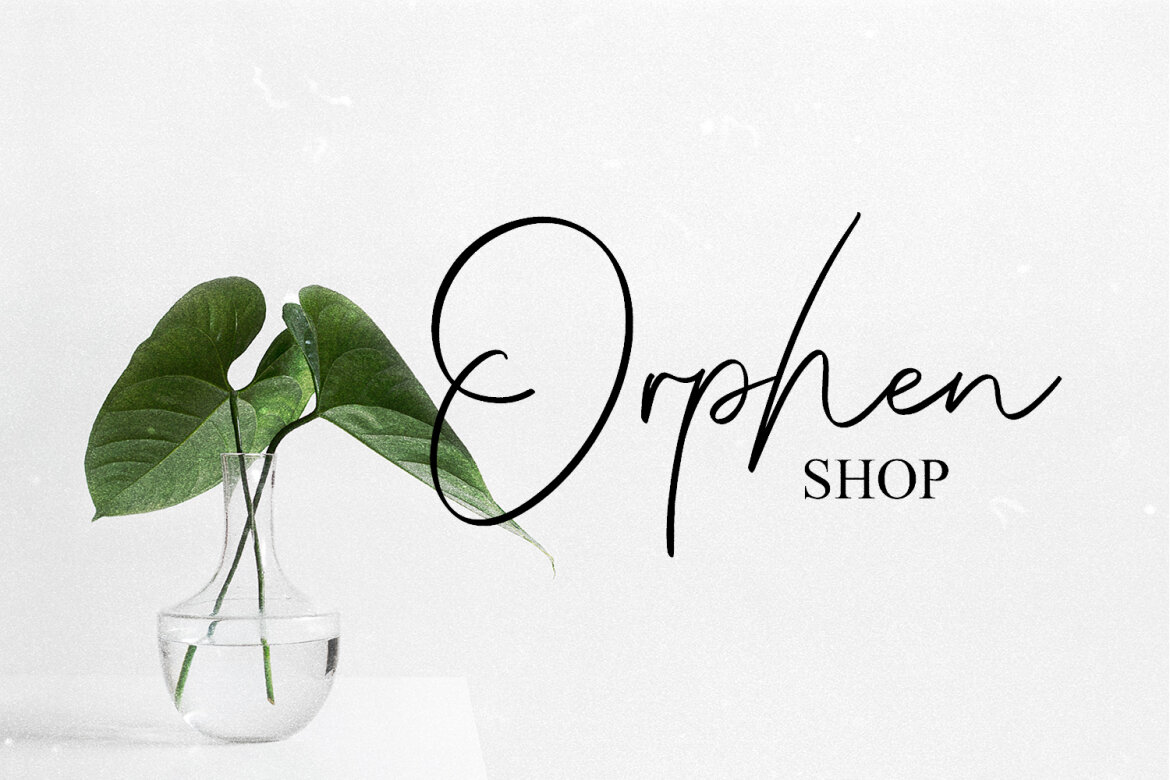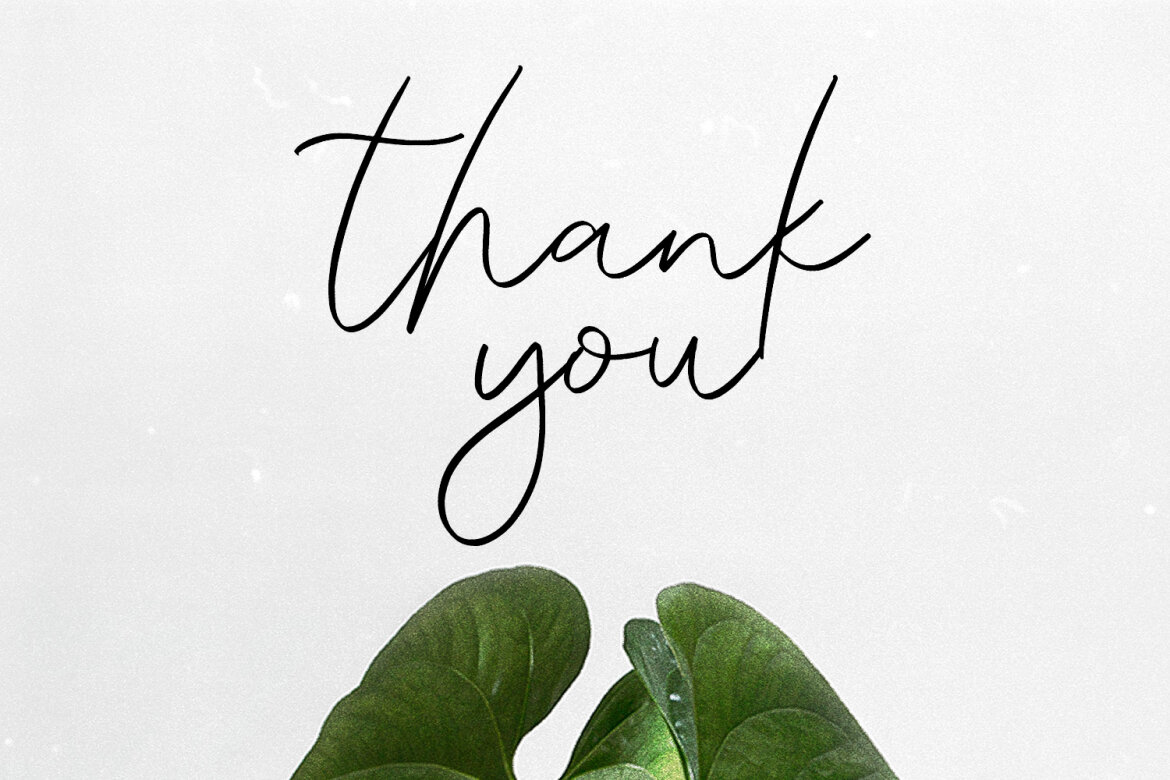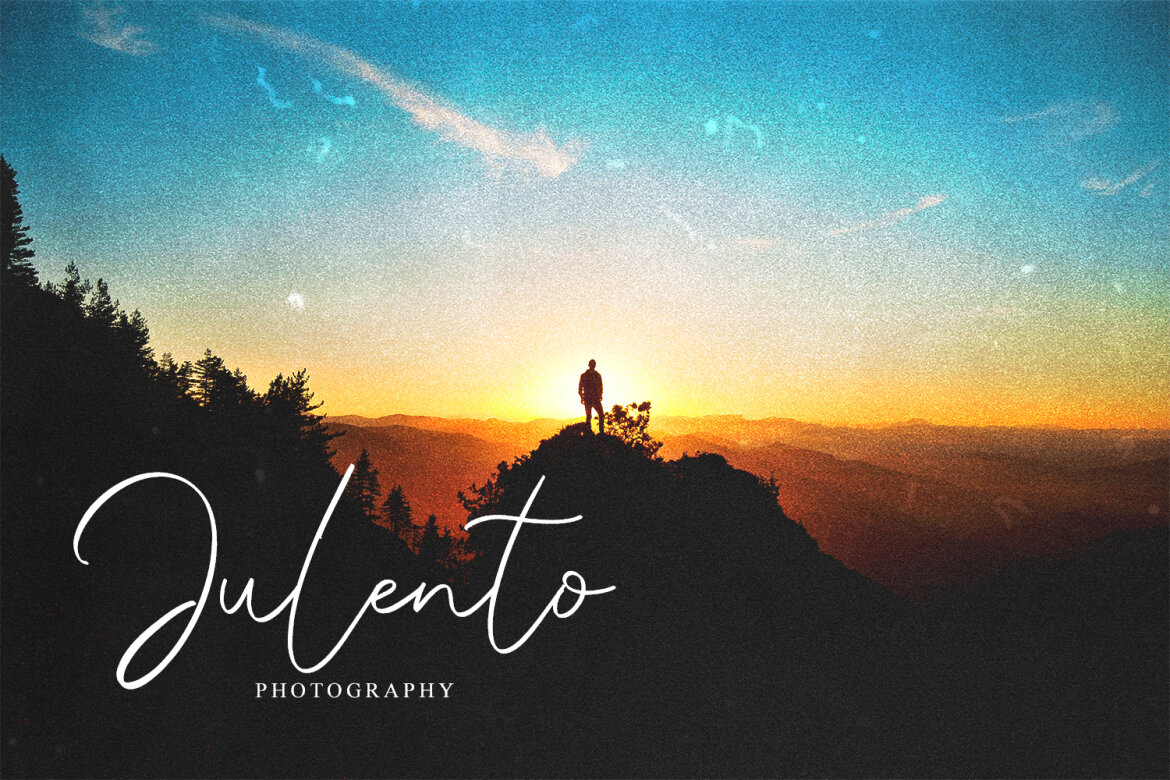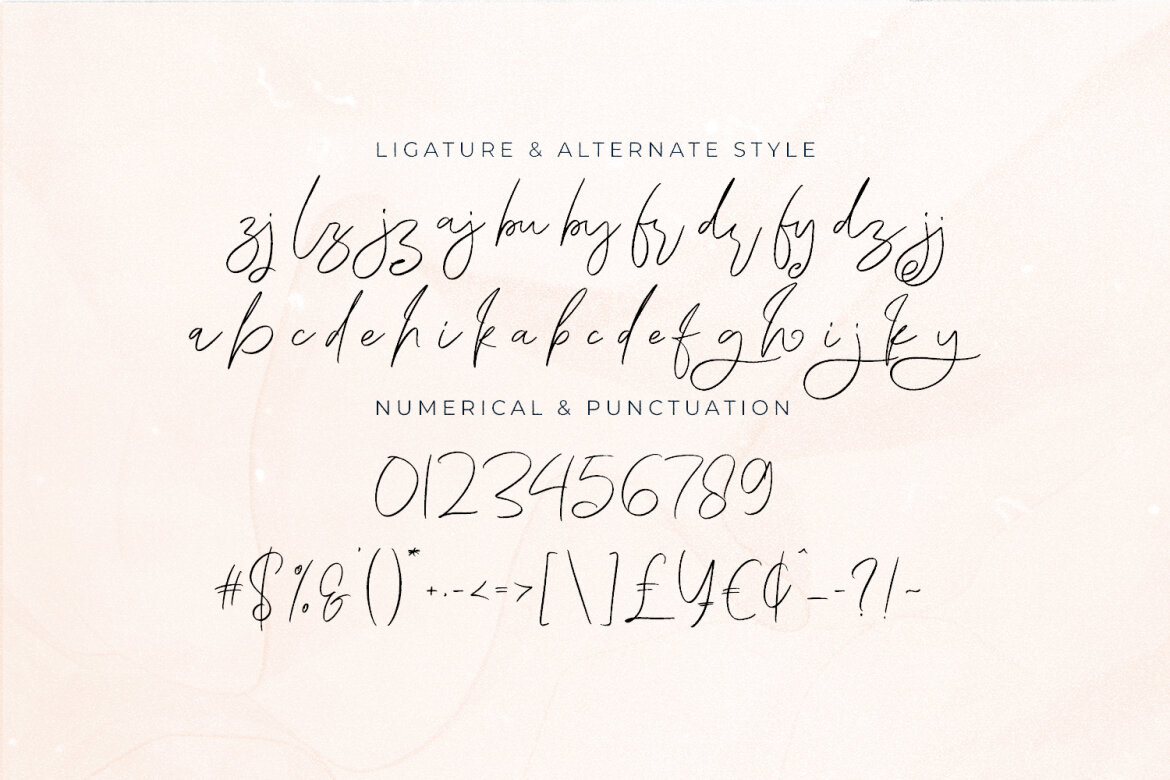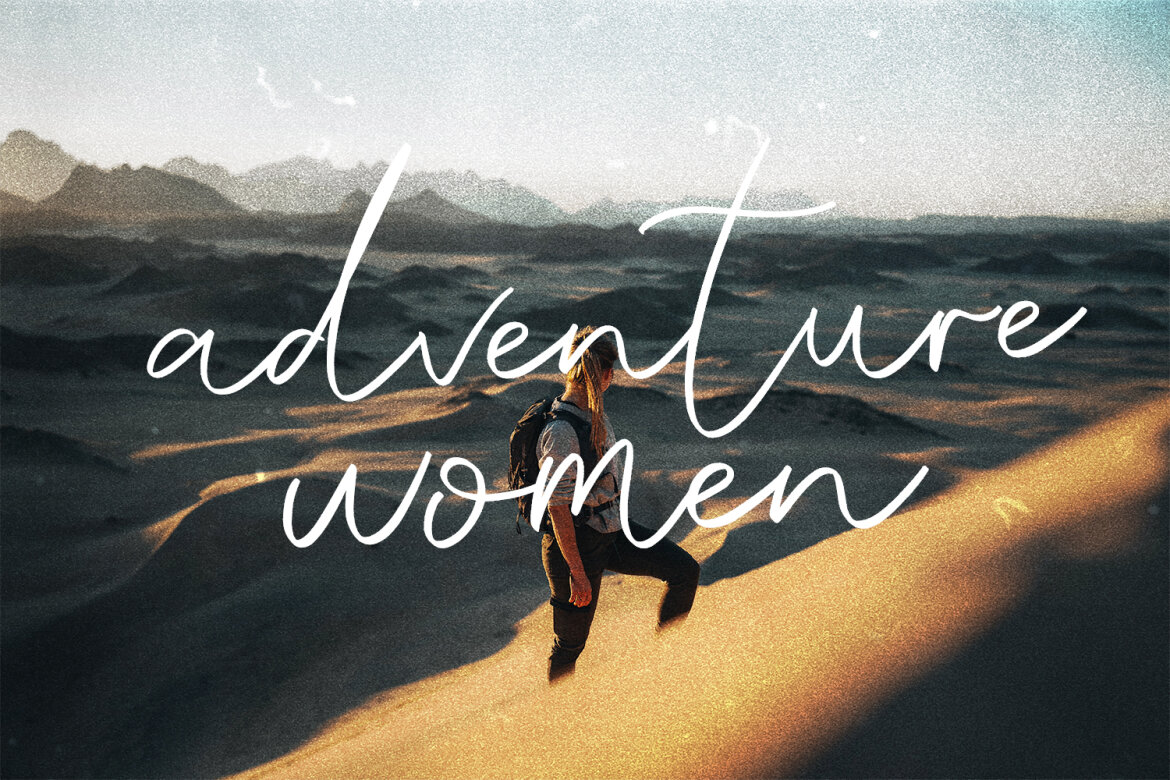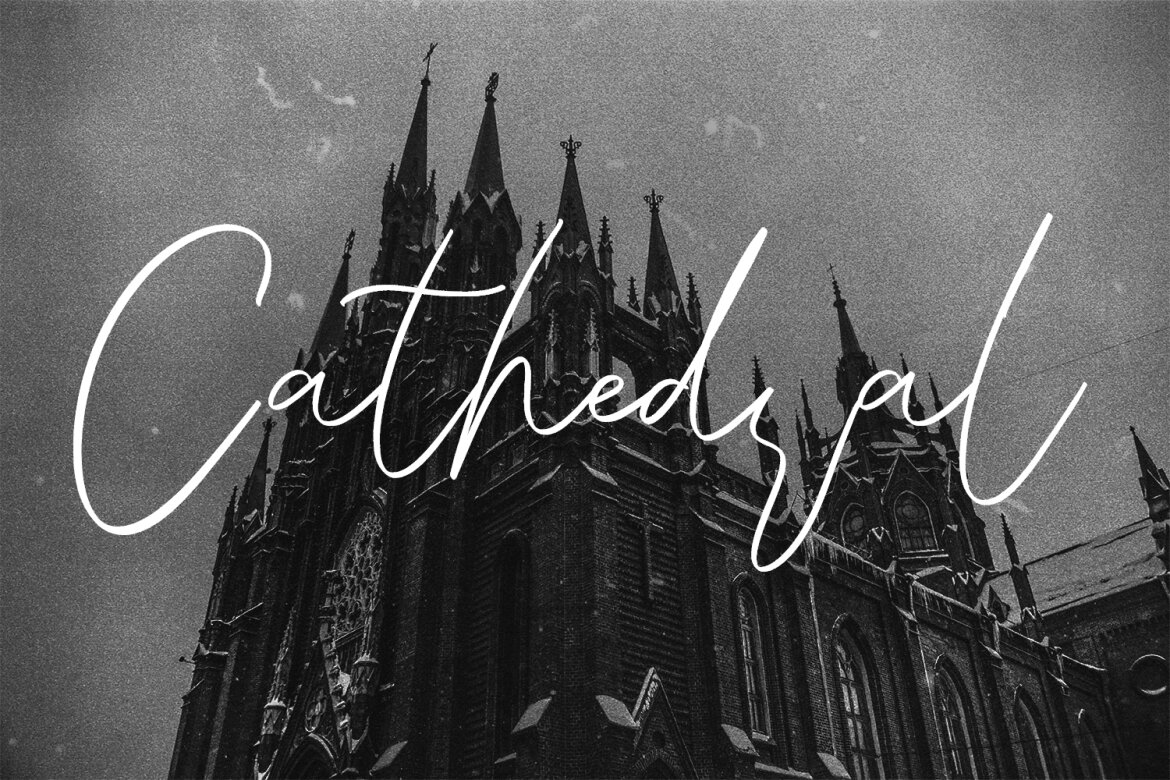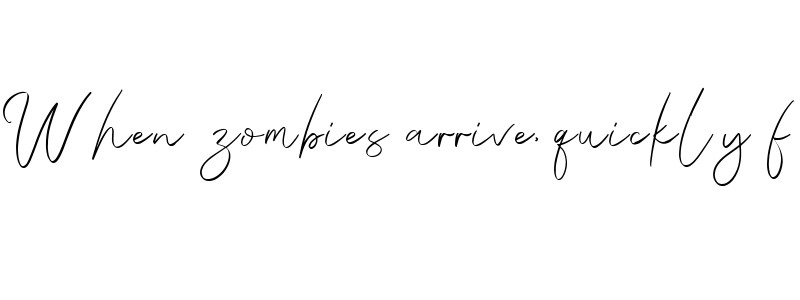
Delyndo Signature FREE Script Font
Delyndo signature script handmade font. Monoline contrast stroke, fun character with a bit of ligatures and alternates. To give you an extra creative work. This font is good for logo design, Social media, Movie Titles, Books Titles, a short text even a long text letter and good for your secondary text font with script or serif. Make a stunning work with Delyndo font.